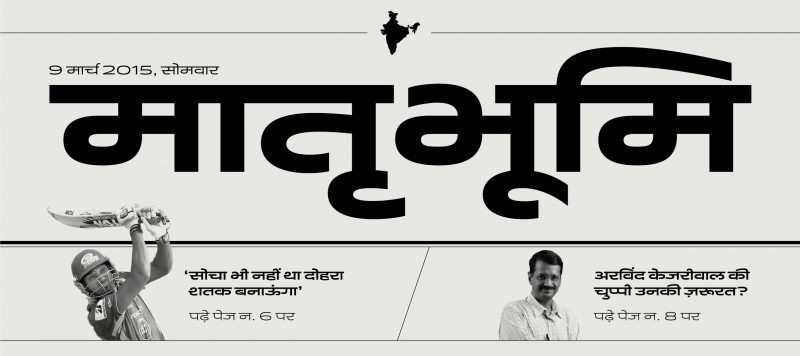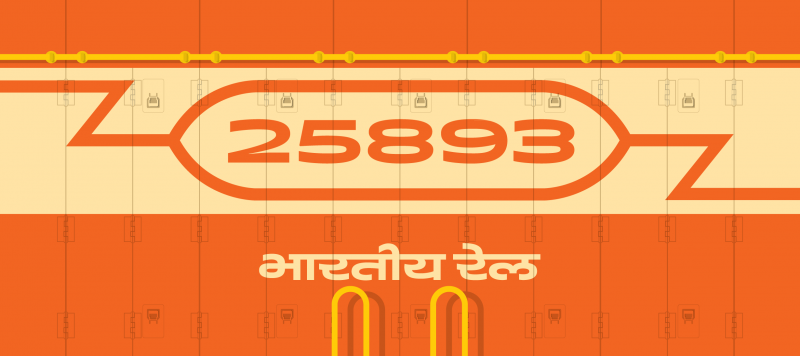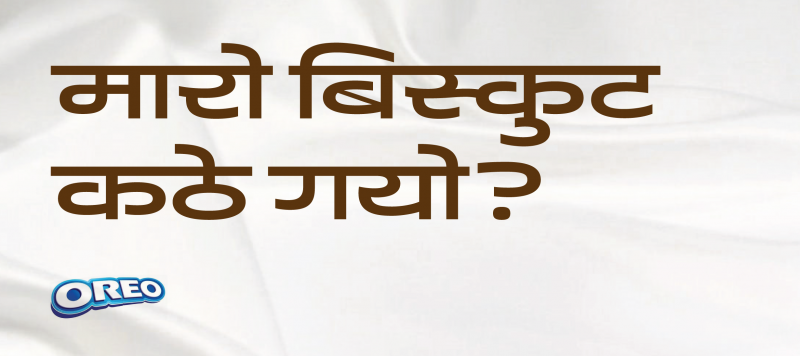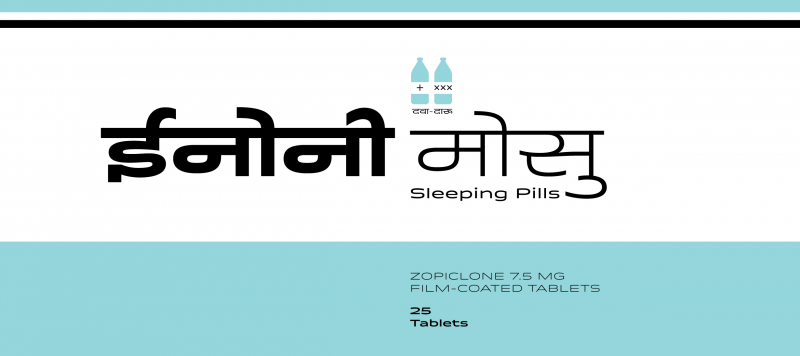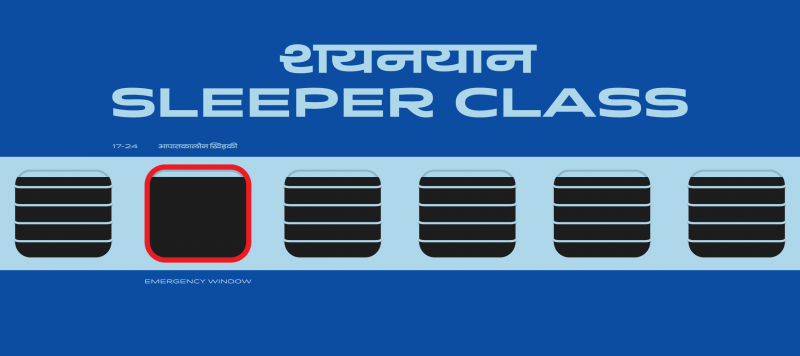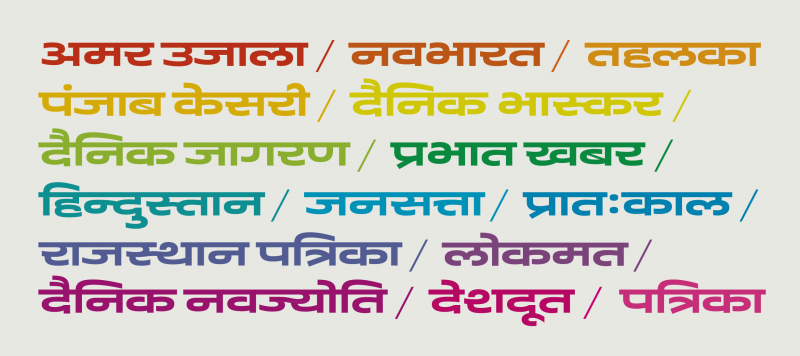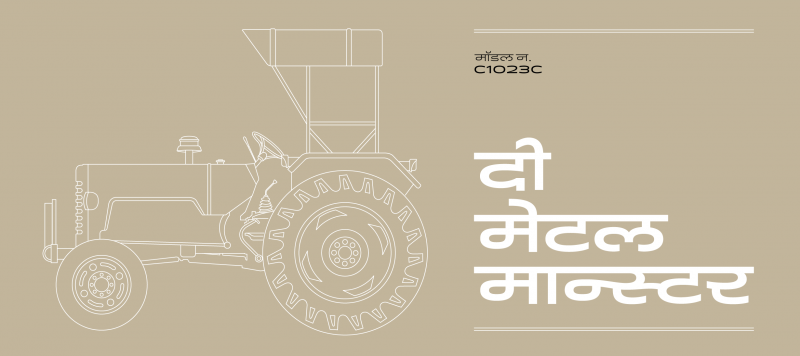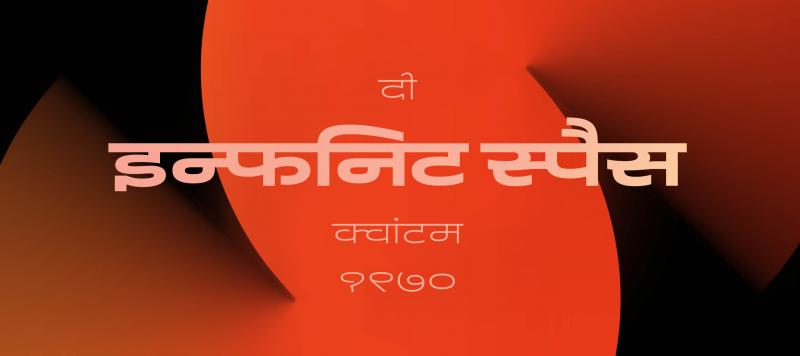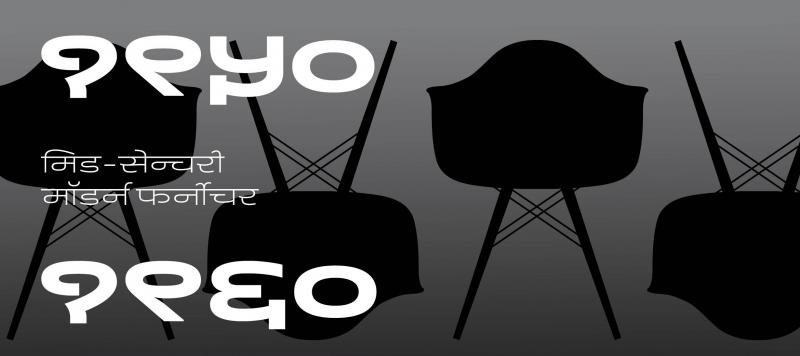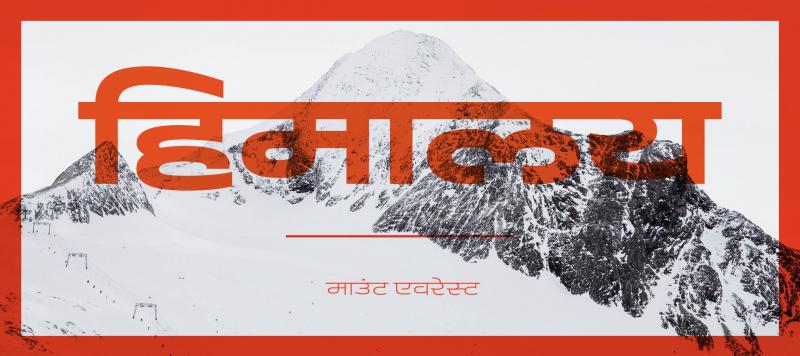
Display type must grab our attention in order for its message to get across. Quantum Devanagari is a very extended display face, and its forms are impossible to ignore. It features wide letterforms with long, arching curves; these keep text set in Quantum Devanagari from looking too technical. Marks above and below the base characters are simplified, and several consonants feature open counters. The family’s five weights each include 750 glyphs, which in turn supports all necessary Devanagari conjuncts and ligatures.
Family Name Quantum Devanagari
Designer(s) Hitesh Malaviya (Rocky)
Release Date March 9, 2015
Available Style Light, Regular, Medium, Semibold, Bold
Classification Display, Sans
Supported Languages Hindi, Marathi, Sanskrit